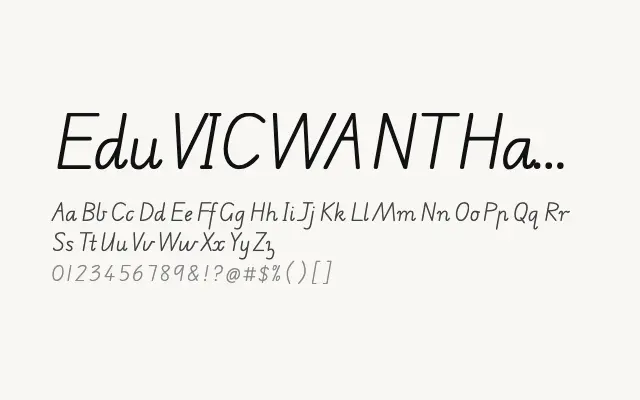
Edu VIC WA NT Hand Pre
A pre-cursive, unjoined handwriting font designed for the earliest stages of literacy instruction in the Victorian curriculum.
Edu VIC WA NT Hand Pre sits at the foundation of the Edu series, representing the pre-cursive stage where children learn individual letterforms before joining them. It shares the same weight range and extended Latin coverage as the Hand variant, keeping consistency across the family for educational publishers. Its application is almost entirely limited to primary school teaching resources.
A pre-cursive variant of the Edu VIC WA NT Hand series, featuring unjoined letterforms that represent the stage before fully connected cursive writing is introduced. Designed for early-stage handwriting instruction.